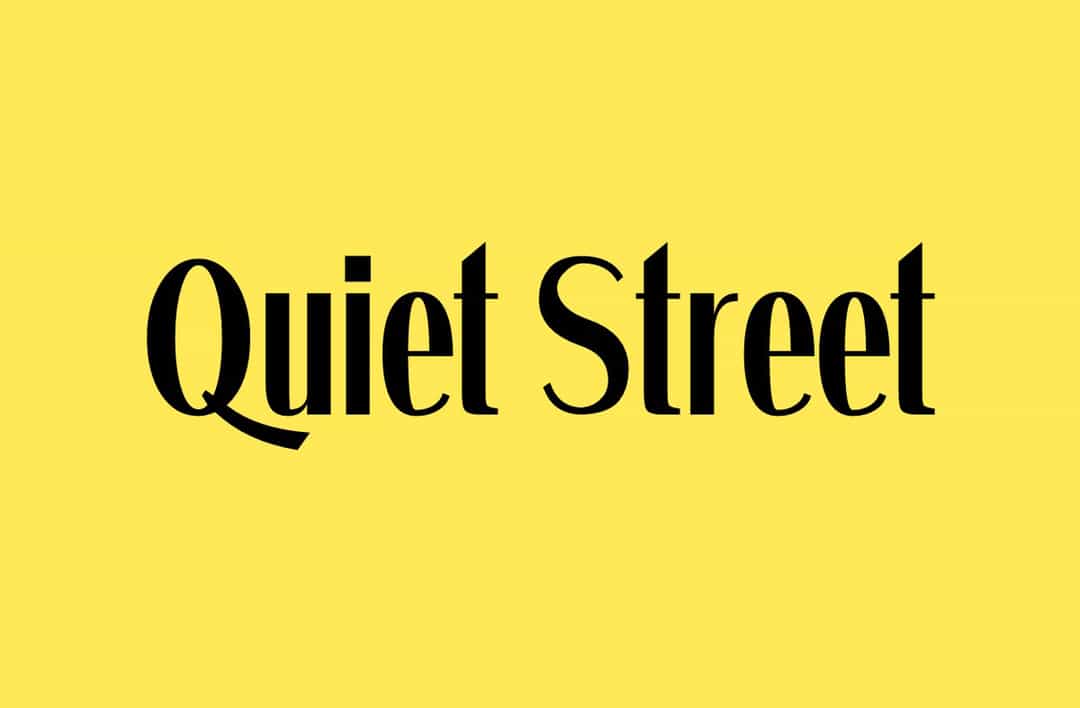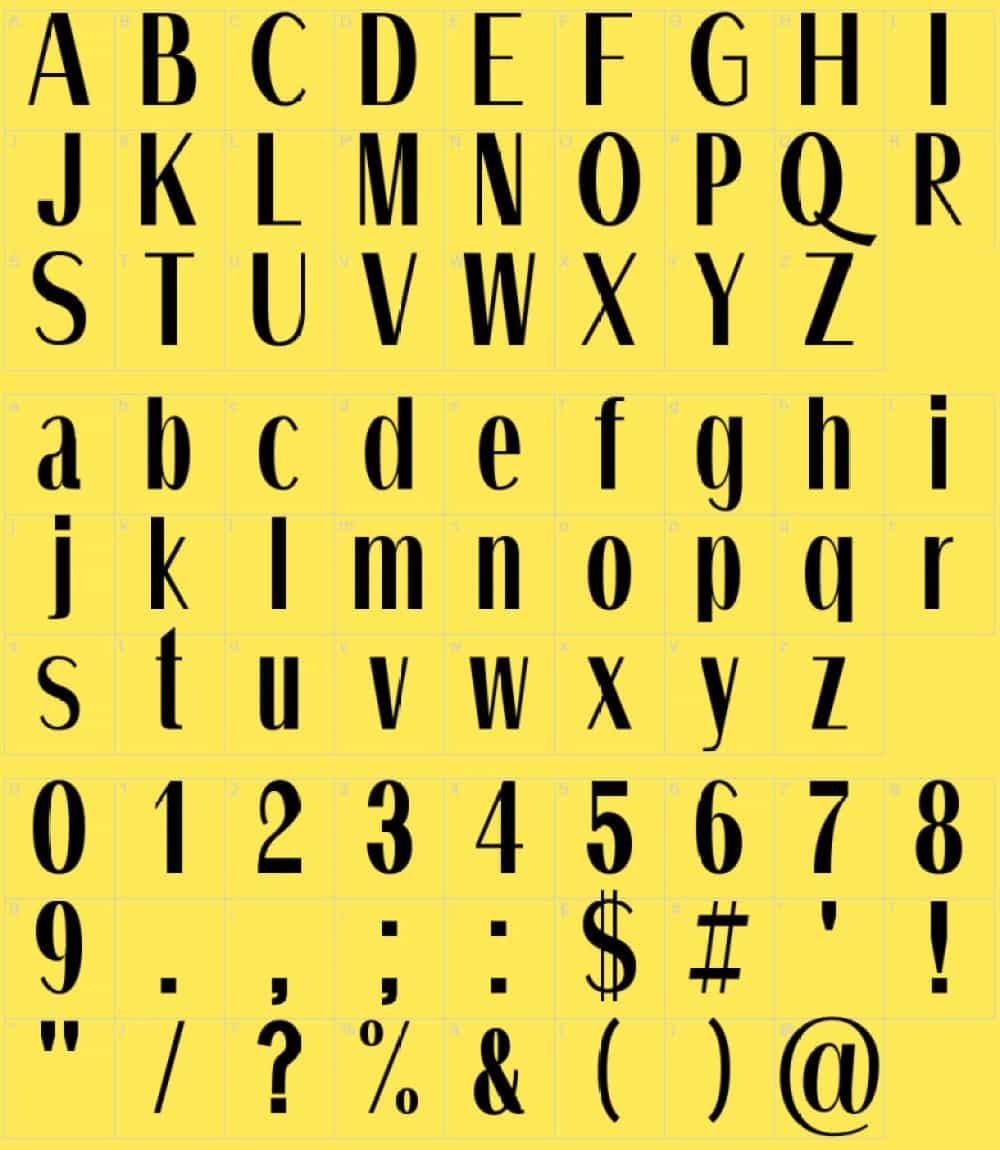
Darrell Flood designed and shared Quiet Streets font, which offers an elegant sans serif typeface with over 300 characters suited for logos and headlines. Pair this font beautifully with other fonts for stunning titles, logos and typography design tasks!